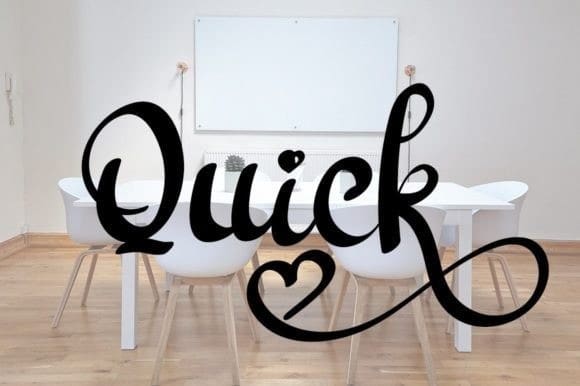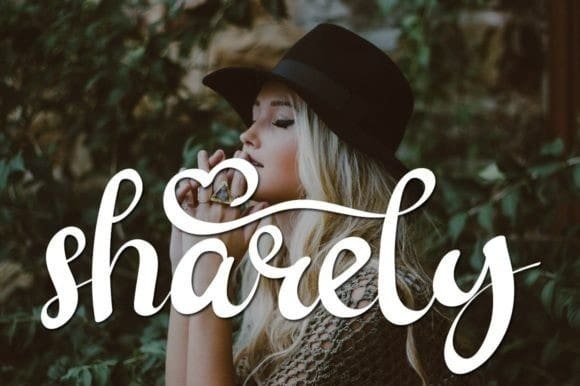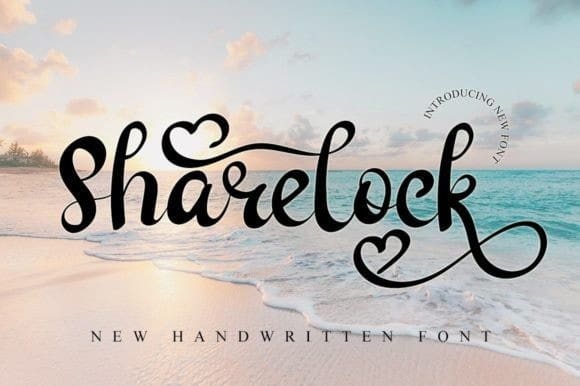
Sharelock Script Font
Sharelock Script Font is a beautiful and sweet font. It is fresh, clean, and elegant. This font will look amazing in a great number of projects, both formal and informal. It will add an incredibly joyful touch to your designs. Fonts are designed to simplify your design. By using this font, your business will look more beautiful.